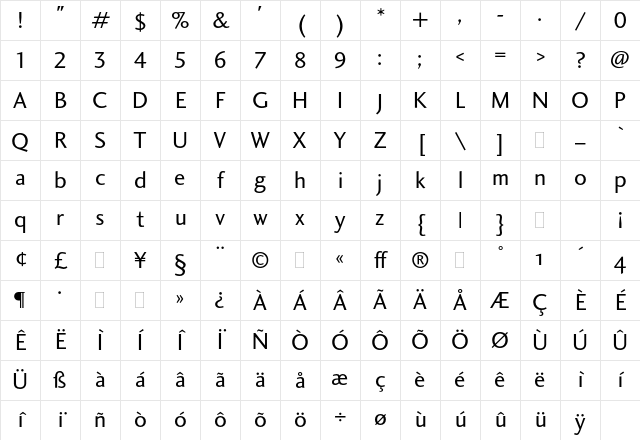
Charlotte Sans Book Plain
Complete Charlotte Sans Book Plain glyph index. Displaying only characters natively supported by Charlotte Sans Book Plain font.
Design Context for Charlotte Sans Book
Charlotte Sans Book is a composed and adaptable typeface that performs quietly and consistently across a wide range of design contexts.